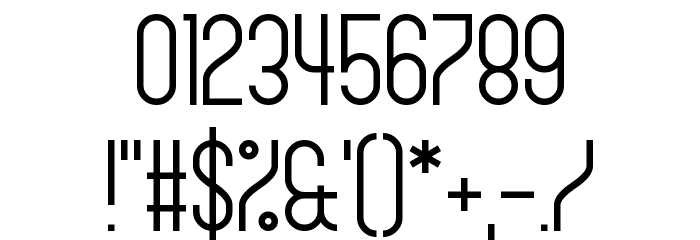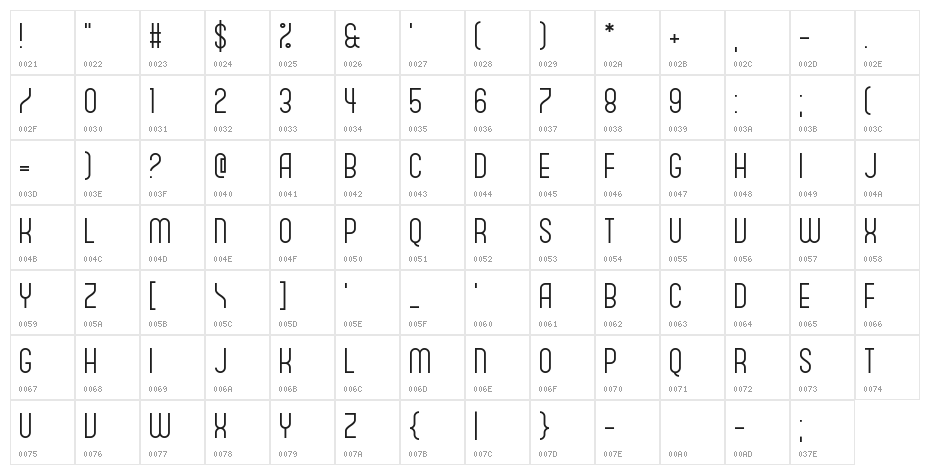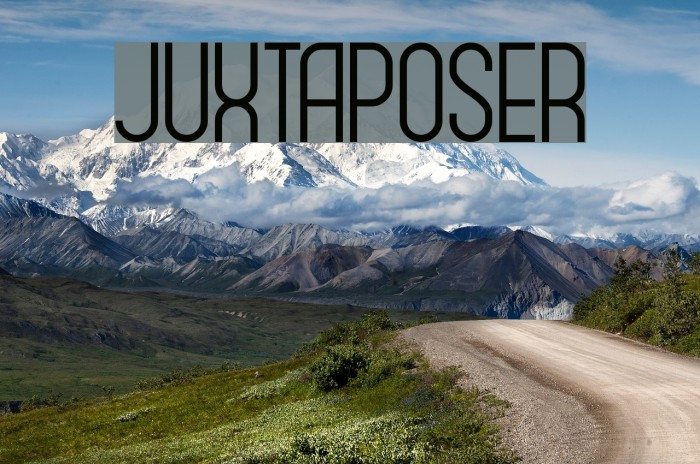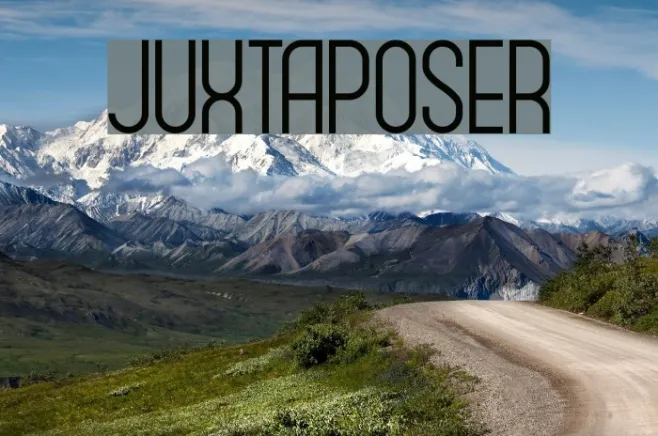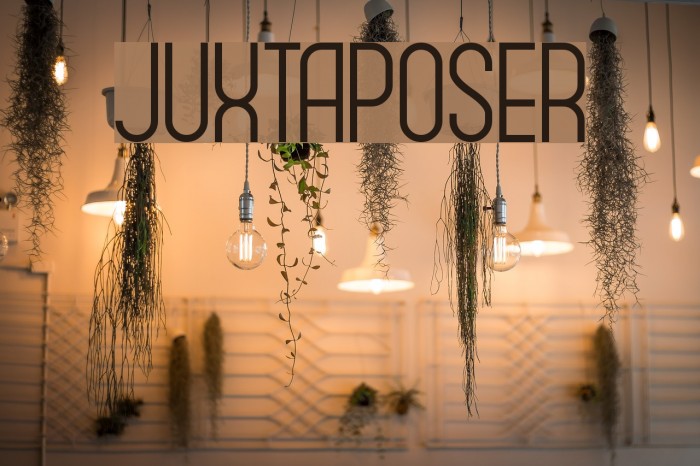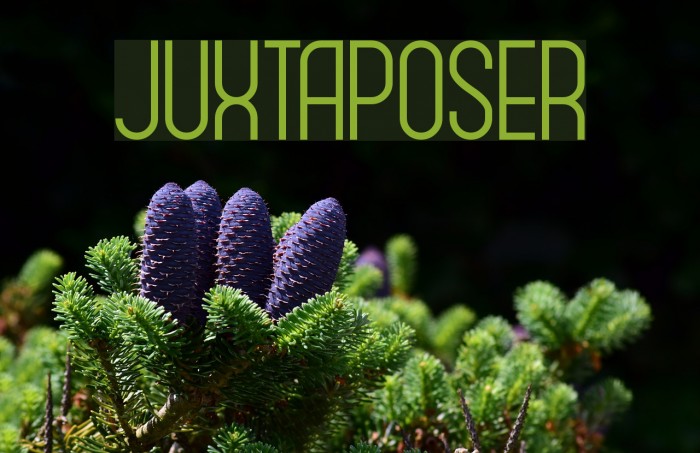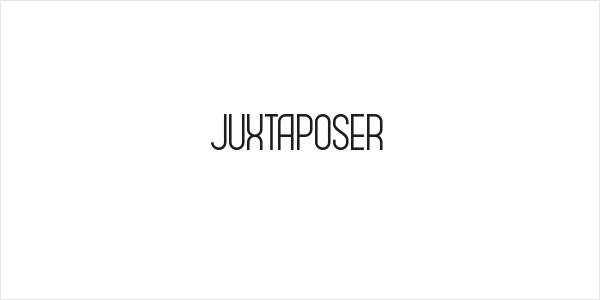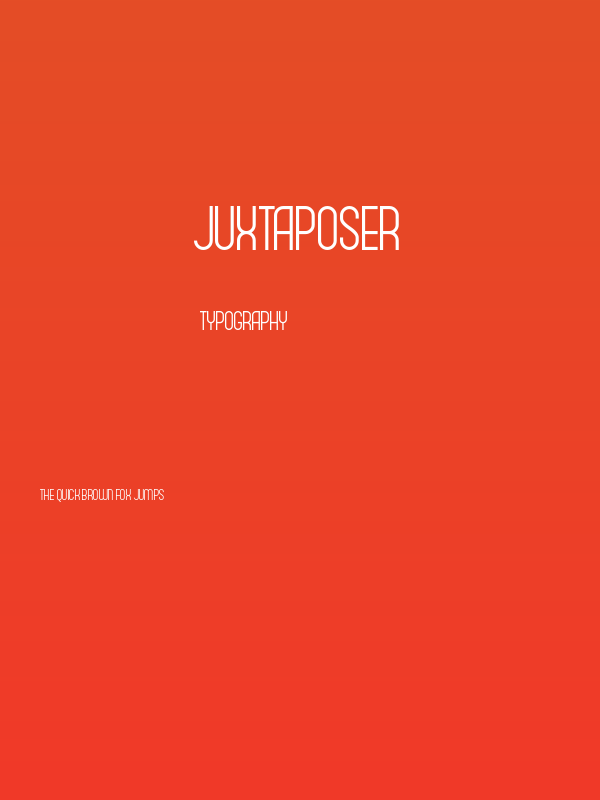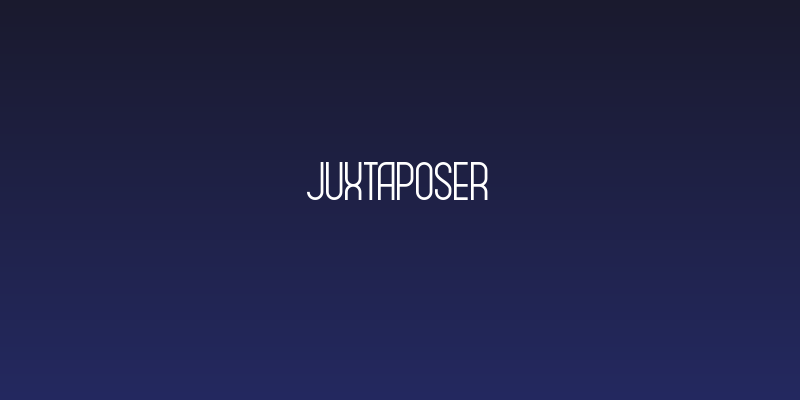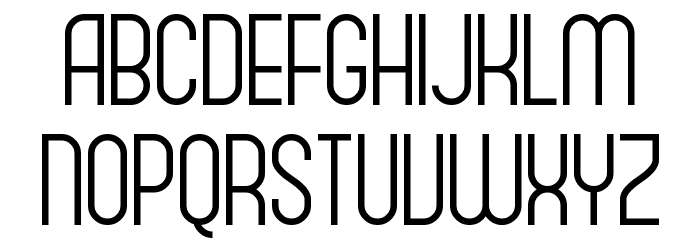
Juxtaposer Font
Juxtaposer Description
This font features a modern and geometric design with clean, rounded edges and a uniform stroke width. The characters are tall and narrow, giving a sleek and sophisticated appearance. The uppercase letters are particularly elongated, while the lowercase letters maintain a consistent height, contributing to a cohesive look. The numerals and special characters follow the same design principles, ensuring harmony across all elements. The font's minimalistic style makes it versatile for various applications, from digital interfaces to print media.
| Use Case | Headlines, Logos, Digital Interfaces |
| Proposed Projects | Ideal for branding, digital interfaces, posters, and modern editorial design. |